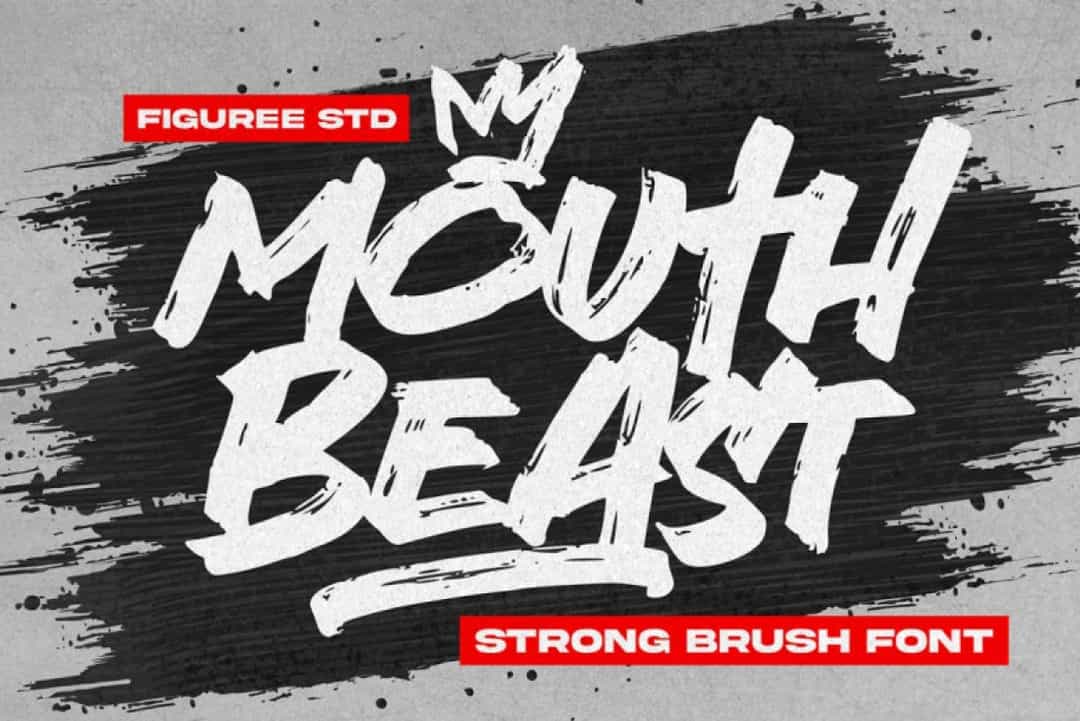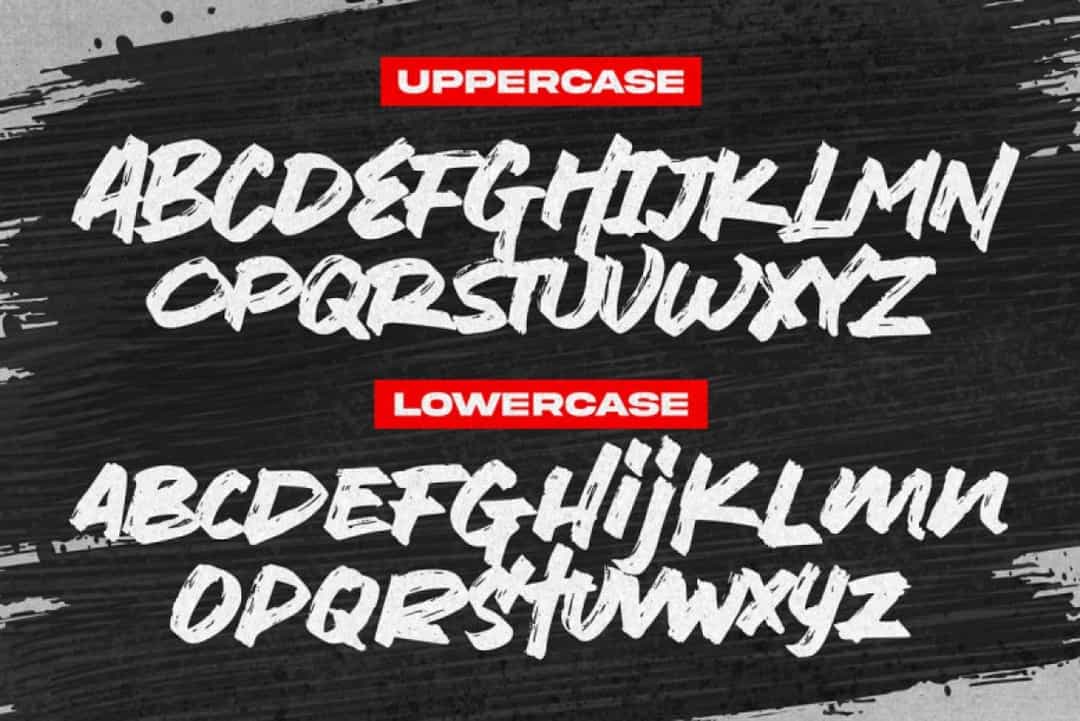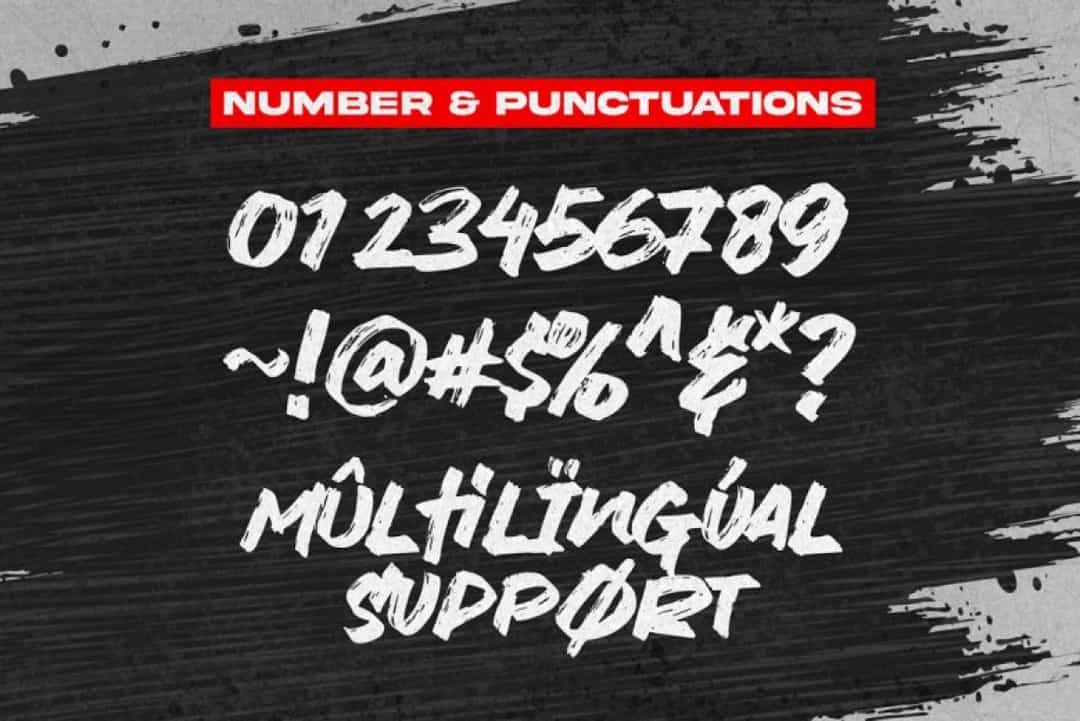
Mouth Beast is an intense and sturdy brush typeface designed to bring out the full potential of handcrafted design. The powerful letters convey an indomitable creativity and strength which makes this typeface perfect for projects requiring energetic designs that ooze energy and power.